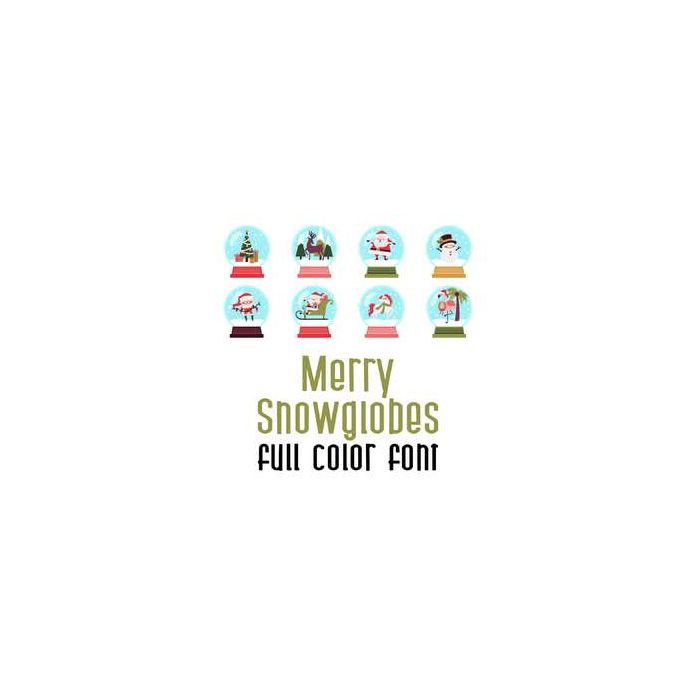
This adorable full color doodlebat font features beautiful Christmas scenes in snow globes. Perfect for cards, crafts, gifts, decor, scrap book pages, planner stickers and more!